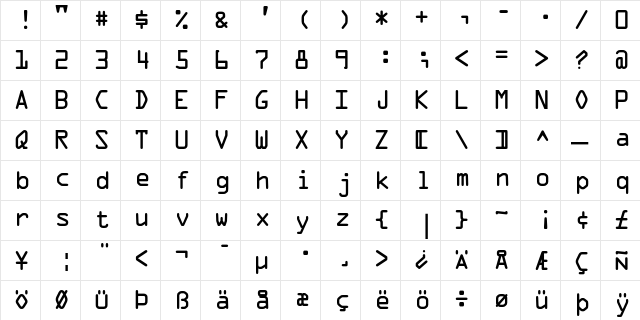
OCRA Alternate
Design Context for OCRA Typeface
OCRA offers clean, dependable letterforms without strong stylistic allegiance, making it a practical choice for designers who need flexibility.